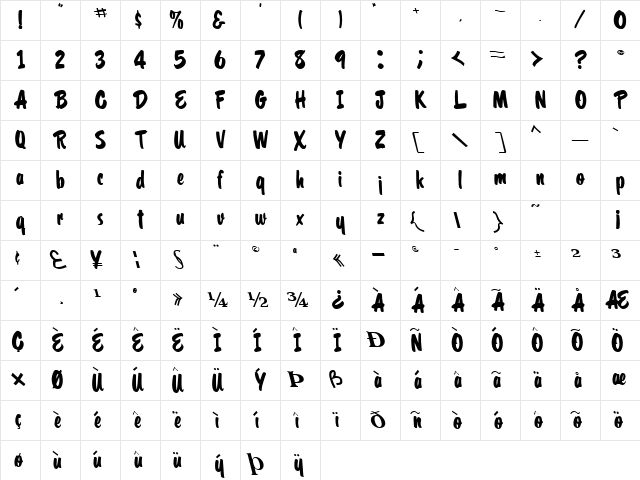
CoolHandLuke Regular
CoolHandLuke Family
Complete CoolHandLuke Regular glyph index. Displaying only characters natively supported by CoolHandLuke Regular font.
Design Context for CoolHandLuke
CoolHandLuke flows with the natural rhythm of handwritten lettering, making it ideal for designs that call for warmth and personal expression.
Font Pairing: Combine CoolHandLuke with a simple geometric sans for maximum contrast - the tension between flowing curves and clean structure is a classic typographic pairing.
Pro Tip: Use CoolHandLuke for short runs of text - names, titles, or taglines. Extended body copy in script faces tires the eye quickly.